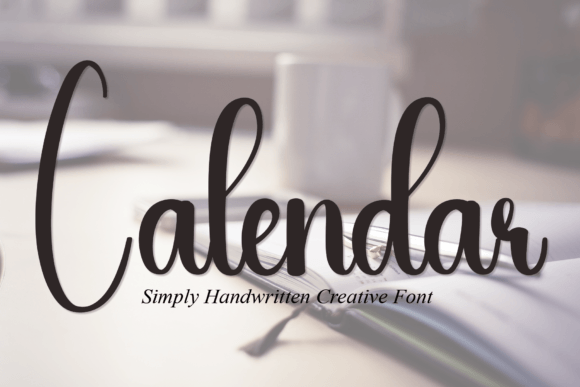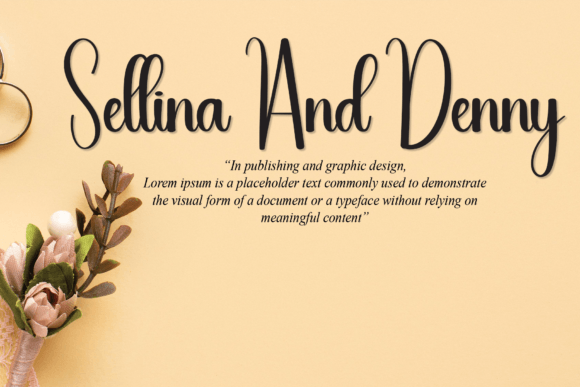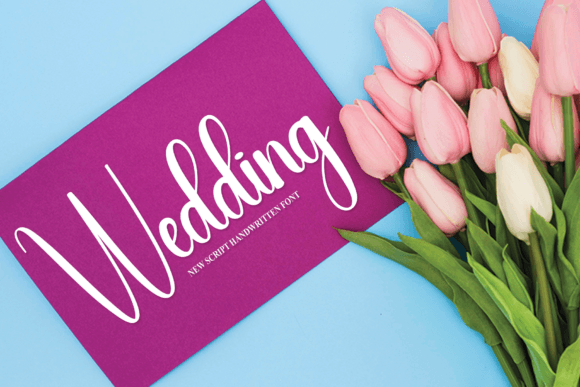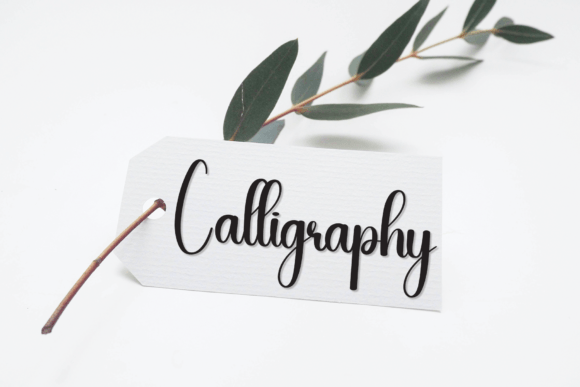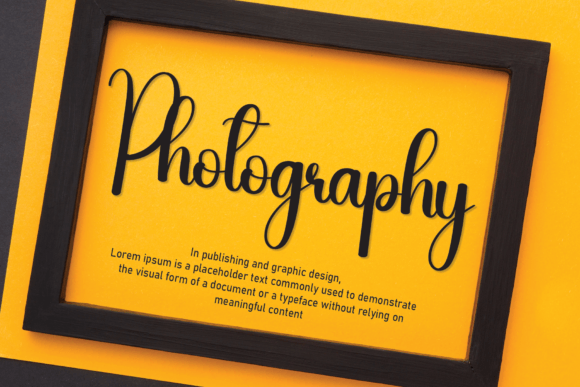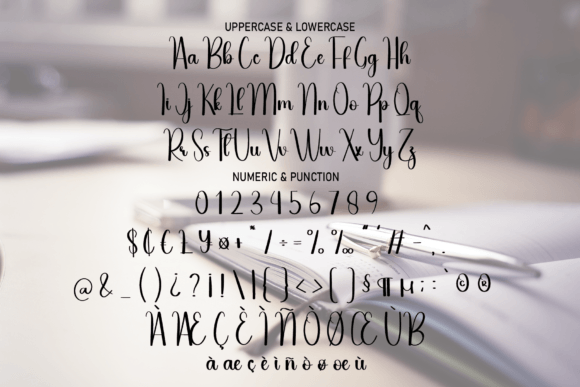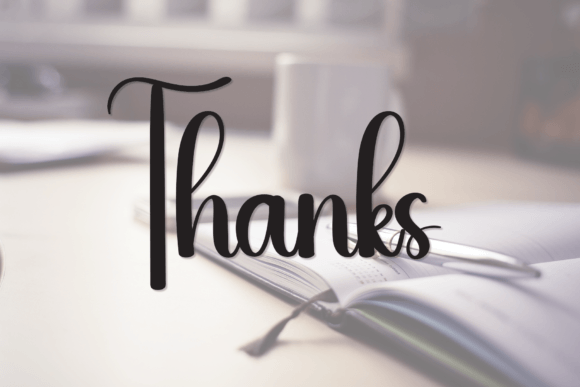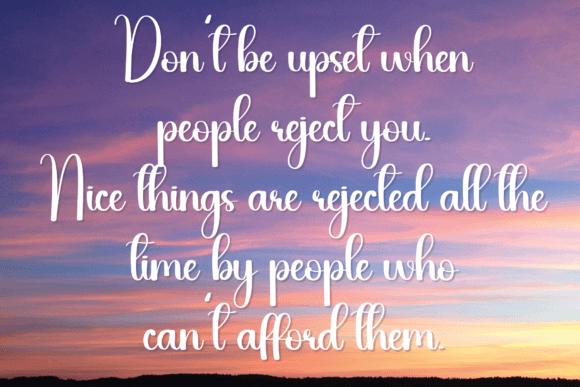
Calendar Font
A Versatile Handwritten Typeface for Creative Projects
The Calendar Font is a versatile and attractive handwritten typeface that adds a unique, stylish touch to any project. With its distinctive design, it’s ideal for a wide range of creative applications. Whether you’re working on wall displays, wedding invitations, social media post logos, or advertisements, the Calendar Font enhances your designs with a personalized, elegant touch.
Perfect for Wedding Invitations and Special Occasions
The Calendar Font is perfect for wedding invitations and other special occasion designs. Whether you’re creating save-the-dates, invitations, or thank you cards, this font adds a romantic, timeless appeal to your stationery. Its handwritten aesthetic ensures your designs feel both personal and elegant, making them perfect for weddings, anniversaries, and other celebratory events.
Great for Logos and Branding
For logos and branding, the Calendar Font offers a stylish and authentic handwritten design. Whether you’re working on a personal brand logo, business logo, or social media branding, this font ensures your brand stands out with a distinctive, approachable style. Its unique handwritten appeal makes your branding feel memorable and authentic, giving it a personal touch.
Ideal for Advertisements and Product Packaging
For advertisements and product packaging, the Calendar Font adds a creative, artistic touch to your materials. Whether you’re designing product labels, flyers, or advertising posters, this font enhances your designs with a premium, refined look. Its versatility ensures that your marketing materials capture attention and make a lasting impression.
Perfect for Photography and Watermarks
For photography and watermarks, the Calendar Font is a fantastic choice. Whether you’re adding a photographer’s signature or a custom watermark to your images, this font ensures your photography is marked with style and authenticity. Its handwritten design makes it ideal for photo albums, portfolios, and watermarks, enhancing the visual appeal of your work.
Elegant, Legible, and Versatile
Despite its stylish handwritten design, the Calendar Font remains legible and versatile. Its well-spaced strokes ensure that your text is easy to read, even at smaller sizes or for longer passages. Whether you’re creating headlines, captions, or body text, this font strikes the perfect balance between style and clarity, making it ideal for a wide range of creative applications.
Add Elegance and Personality to Your Designs with Calendar Font
If you’re looking for a unique, elegant, and handwritten font to enhance your designs, the Calendar Font is the perfect choice. Whether you’re working on wedding invitations, logos, advertisements, or product packaging, this font brings a personalized and charming touch to your work. Let the Calendar Font add style, grace, and authenticity to your creative projects and help them stand out with elegance.